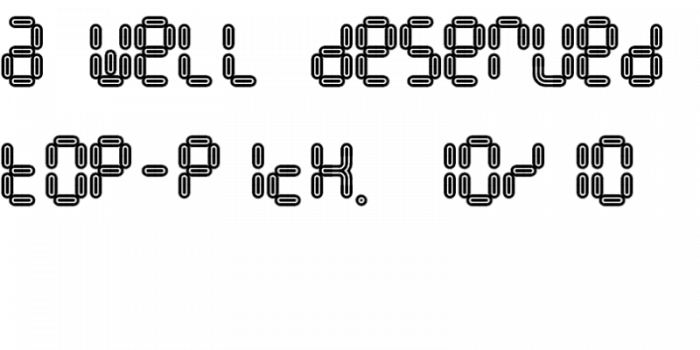
Yummy-yummy! Delicious! ?
Very nice usage of the connect brick pack for the letters + composites for the white and red sushi parts…
Congratulations! FontStruct Staff have deemed your FontStruction worthy of special mention. “KD Sushilka” is now a Top Pick.
Congratulations on the TP! I like the look of the glyphs, the coloured ends remind me of seeing a bag of sugar-paste filled liquorice tubes ;)
I was scared at first, and then I realized that it was sushi, not severed limbs
It looks like sausage, black pudding, or some other cold cut. Should you swap the red and white colors inside and you'd get the look of severed limbs. Grisly, ingenious. 10/10
@Frodo7 Yeah, the limbs also crossed my mind but something didn't feel right and your comment solves it :) Thanks!
Very cool idea and very unusual name. Russians love sushi very much, I think even more than hamburgers. So I hope you will add Cyrillic!
So nice!
Theres colour wut?
Lmao, I love Sushilka calambur :D
Pun* To be clear